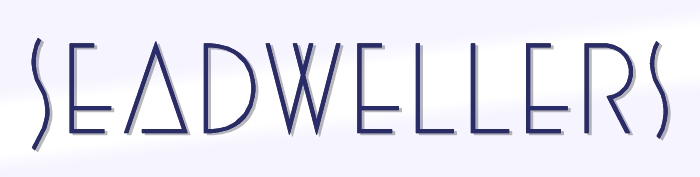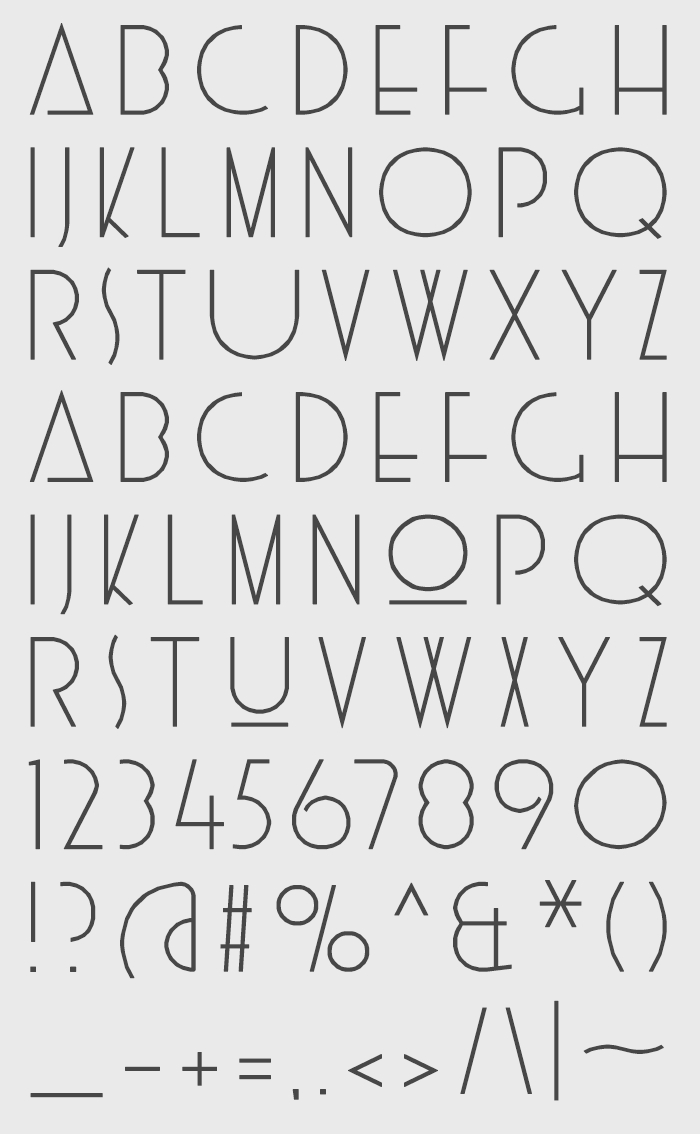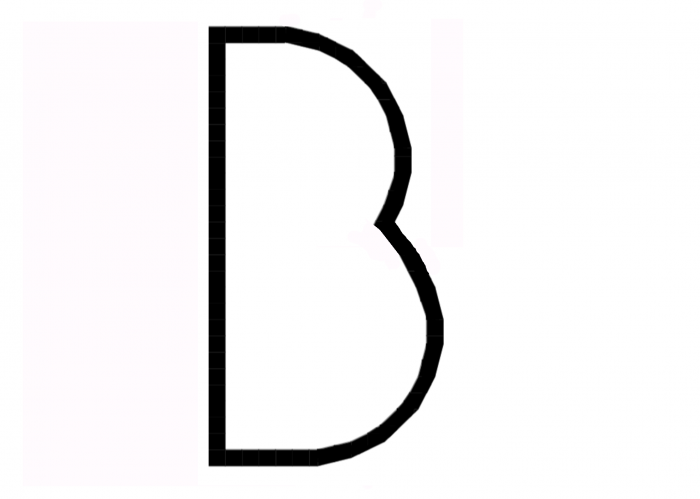
• SEADWELLERS — 1920s Art-Deco Sans style
I was somewhat inspired to do a Art-Deco style lettering of my own after seeing the stylish Art-Deco flavored FontStruction Aquamarine by IronClaws
Other than that the two fonts remain unrelated and Seadwellers poses no resemblance to Aquamarine. Instead I sort of did a 1920s Art-Deco style lettering with thin geometric letterforms. It's comes as a Majuscule only and the letters have nice quirky width variations, with some letters appearing almost extended, while others are more narrow.
— The similar aqua-themed concept is merely coincidental.
Only basic character set!
It remains a WIP for now..
Great Art-Deco style font! And congrats on the TP, pal! Btw, I would like to propose an alternative to the upper curve of B (and other similar glyphs such as 3, 8 or &...). I hope you think about it.
@elmoyenique: I have included top / bottom asymmetry for the letters B,3, 8 and & as you proposed. Also included some other alternate forms for letter B.
The original forms with top / bottom symmetry that have been replaced are still included but got relocated to different codepoints.